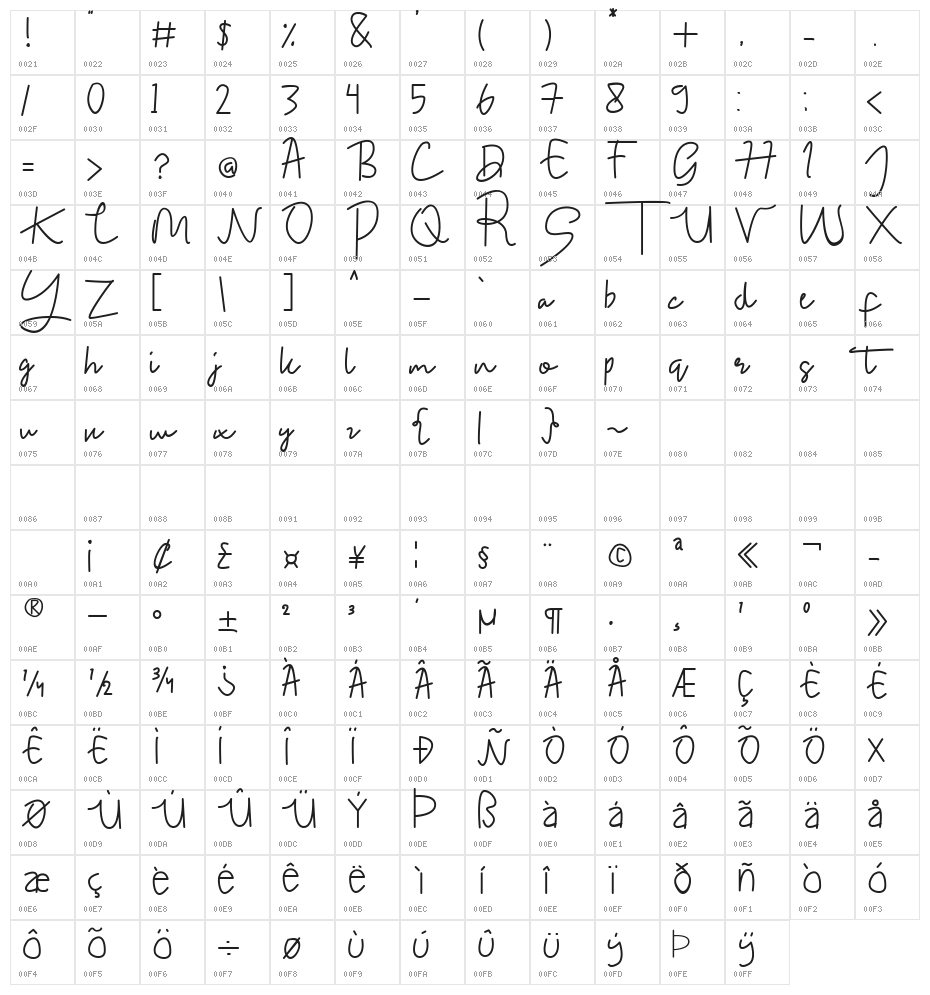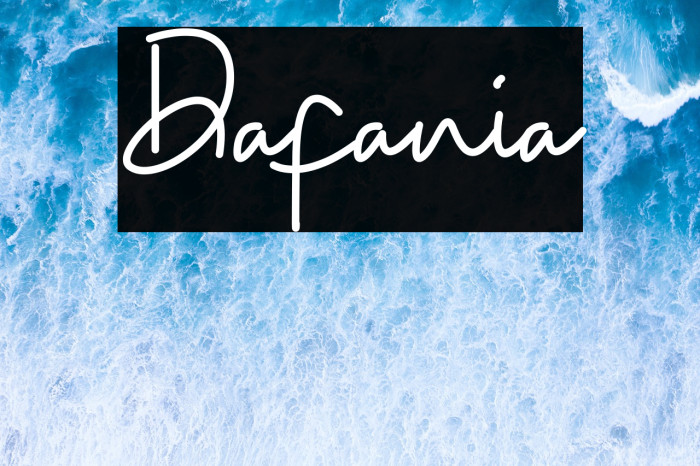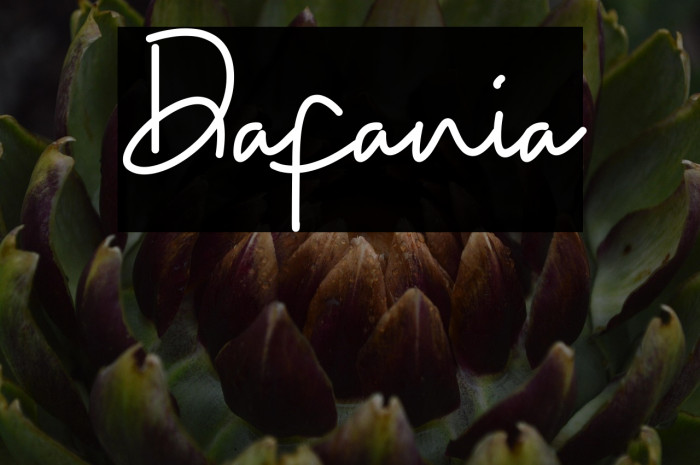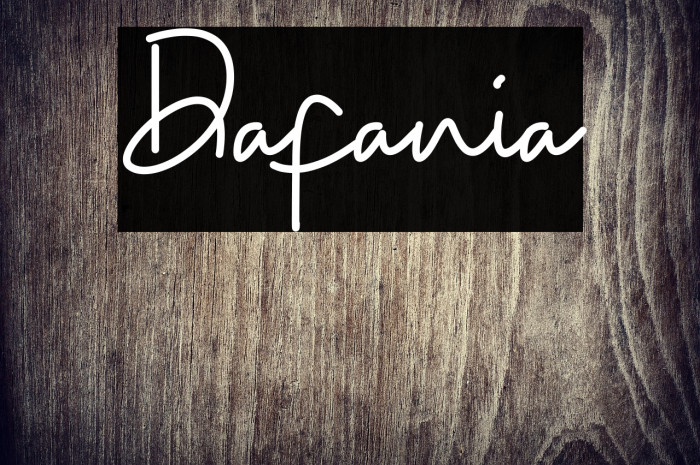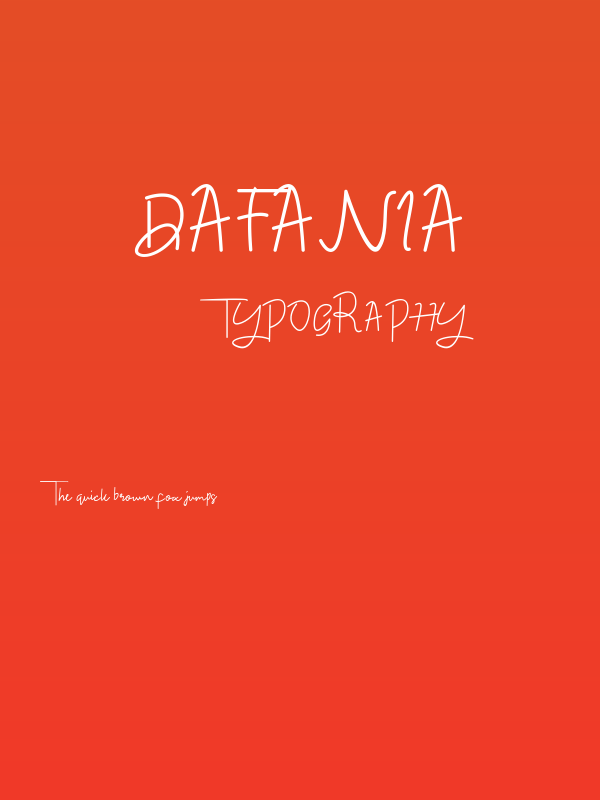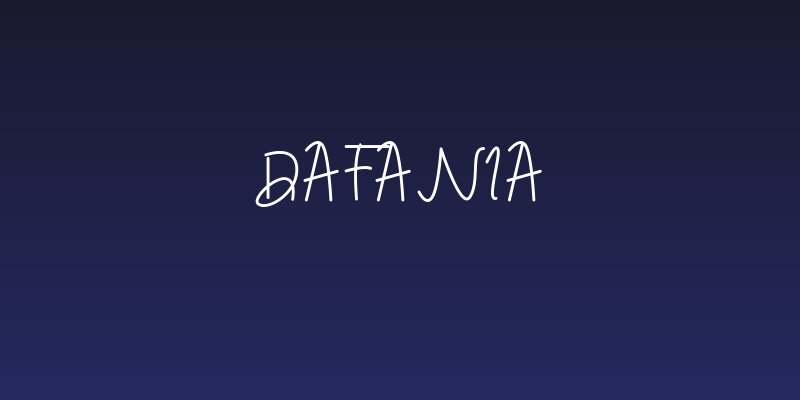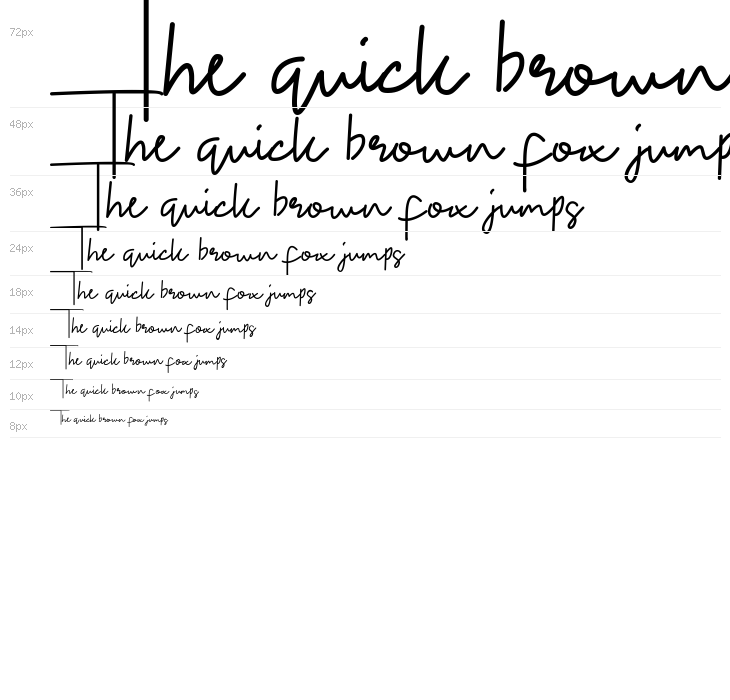
Dafania Font
Dafania Description
This font features a playful and casual handwritten style, characterized by its flowing and slightly irregular strokes. The uppercase letters are tall and slender, with a whimsical touch that adds personality. The lowercase letters maintain a consistent flow, enhancing readability while retaining a unique charm. Numbers are clear and distinct, matching the overall style of the alphabet. Special characters are thoughtfully designed to complement the letters, making the font versatile for various uses. The overall appearance is friendly and approachable, ideal for projects that require a personal touch.
| Use Case | Logos, Headlines, Informal Text |
| Proposed Projects | Ideal for greeting cards, personal branding, social media graphics, and informal invitations. |